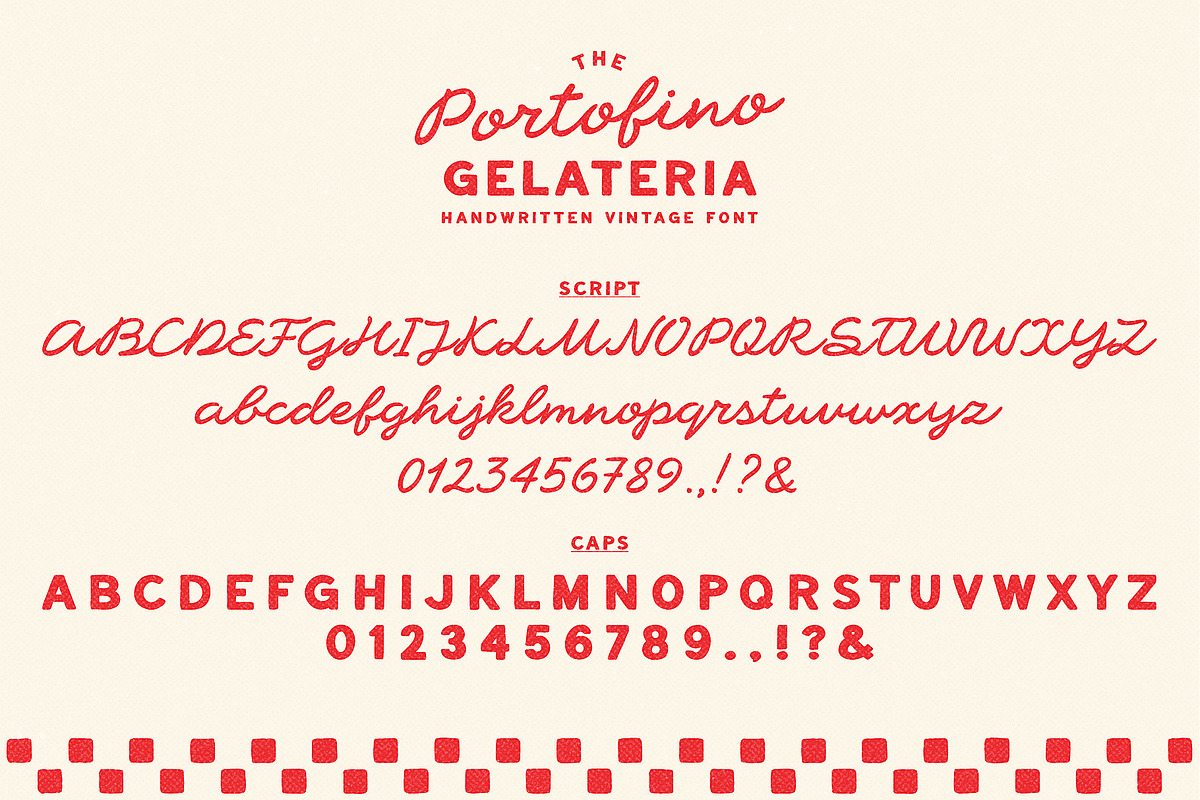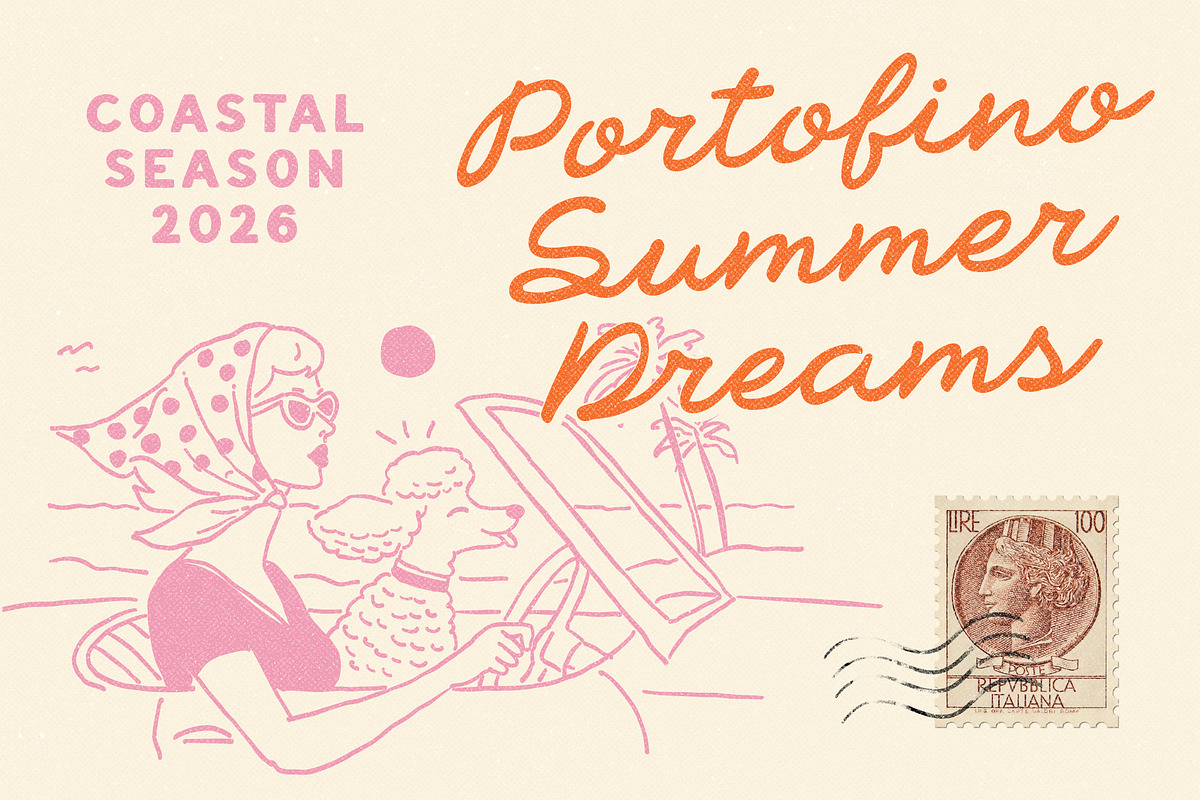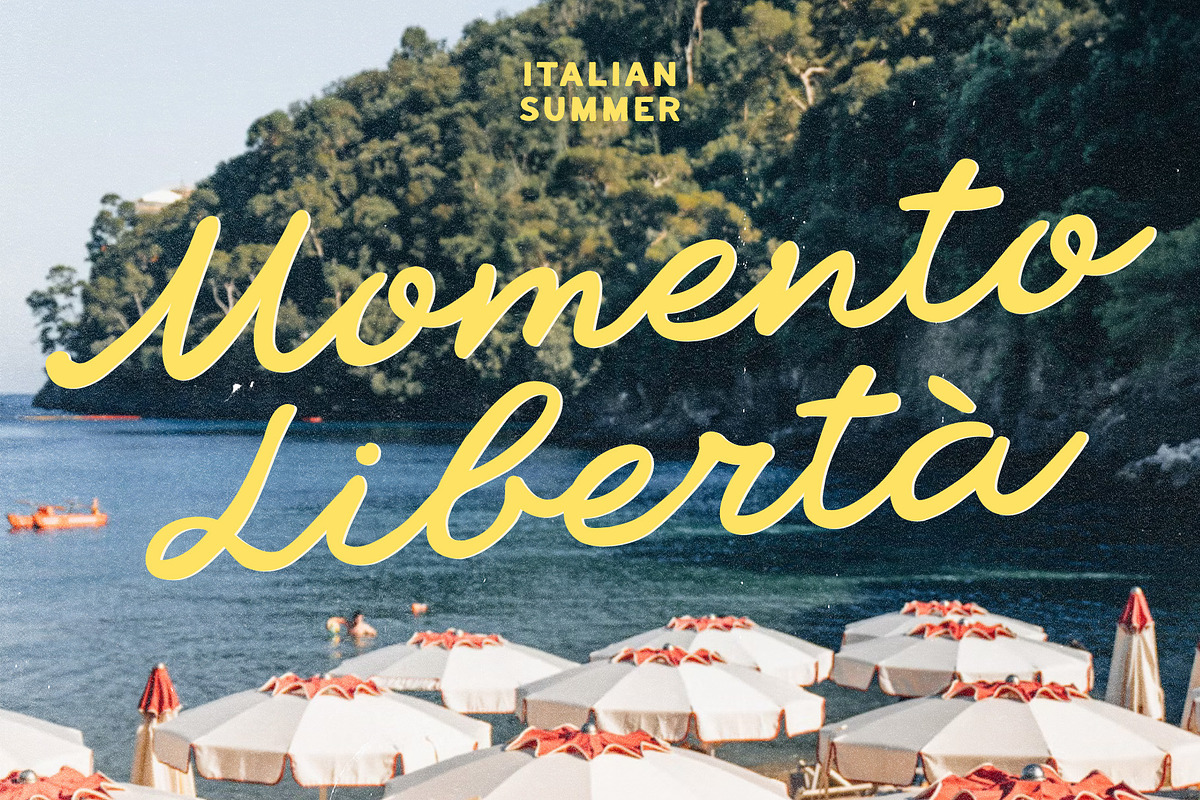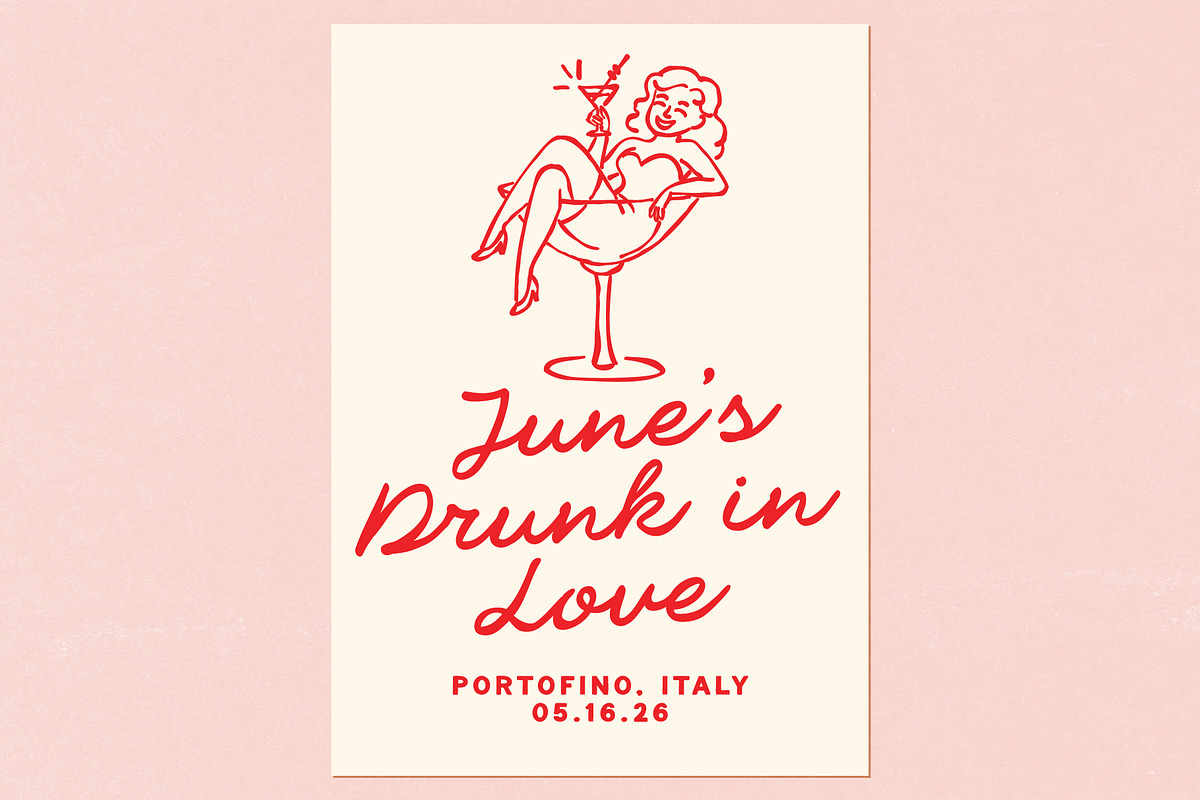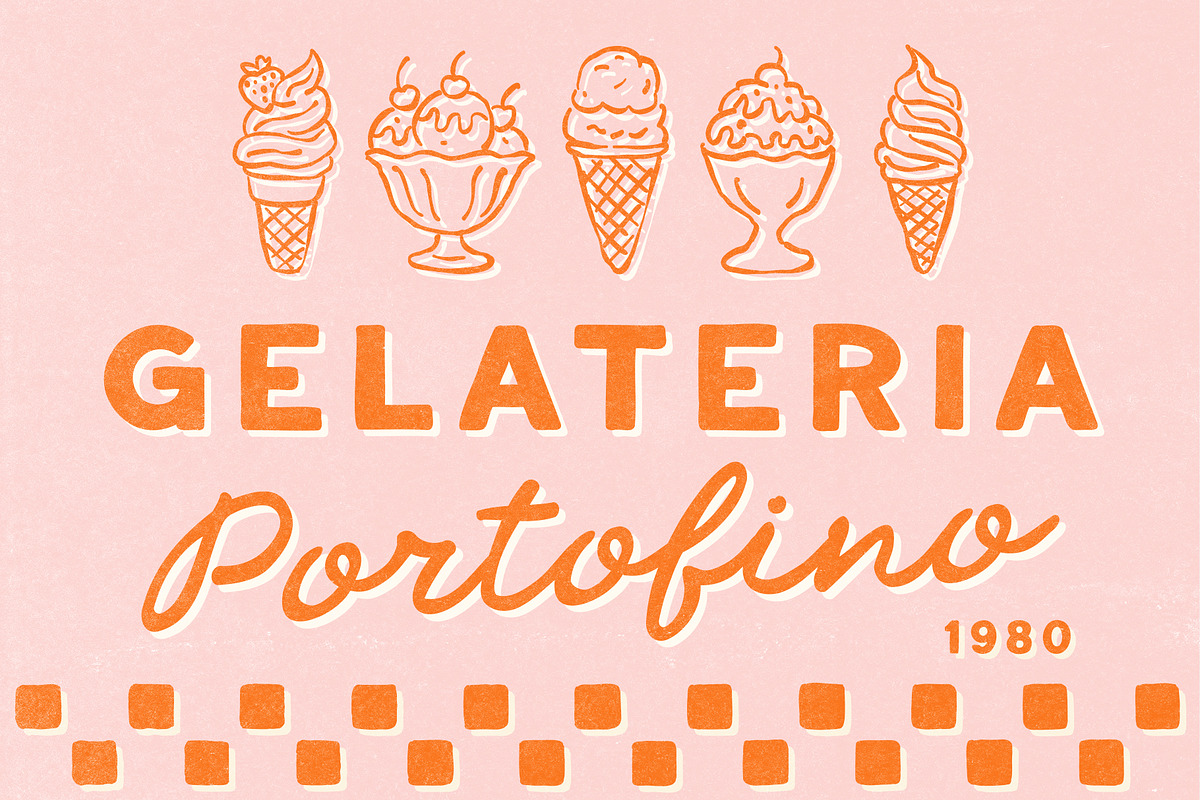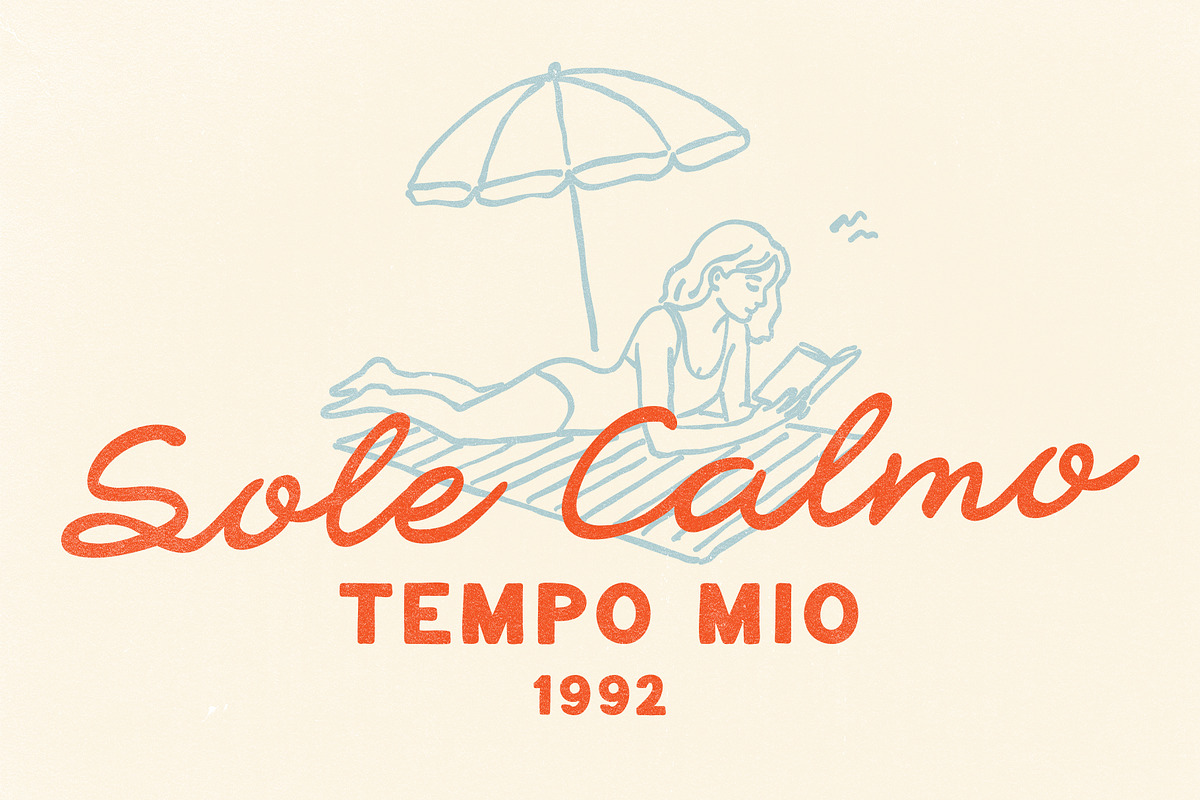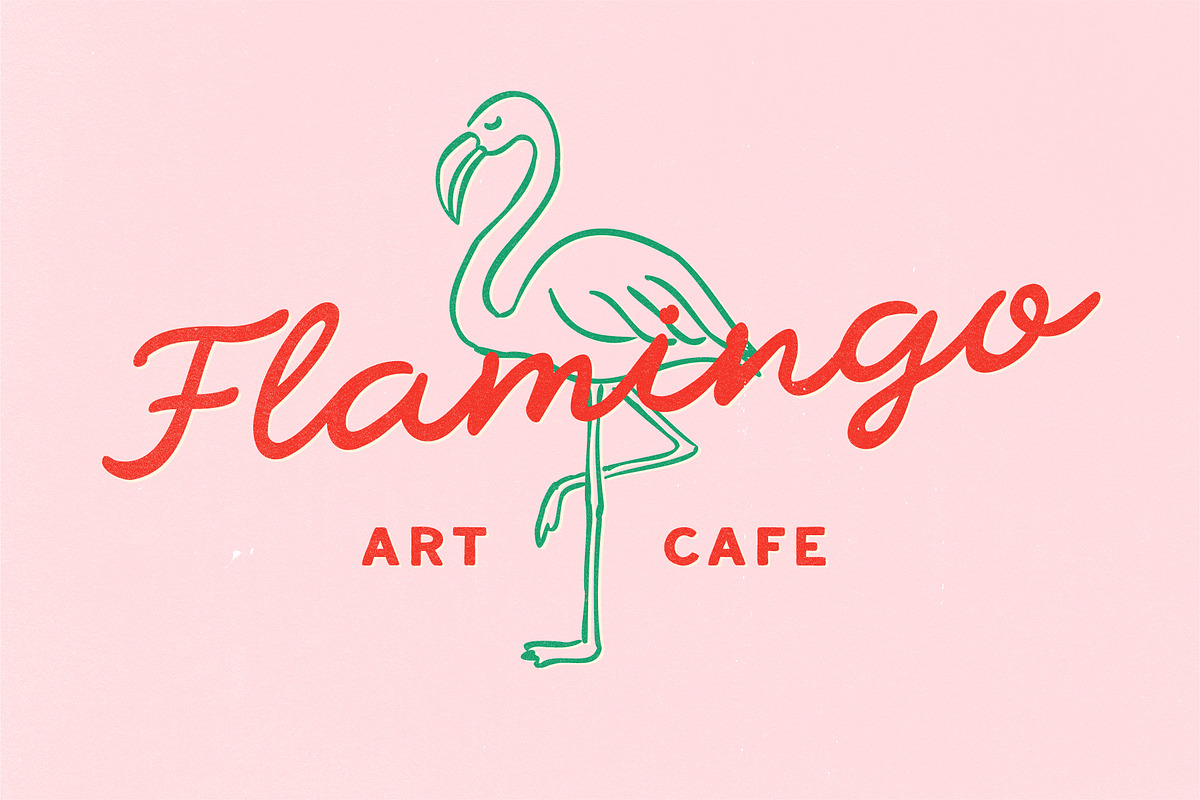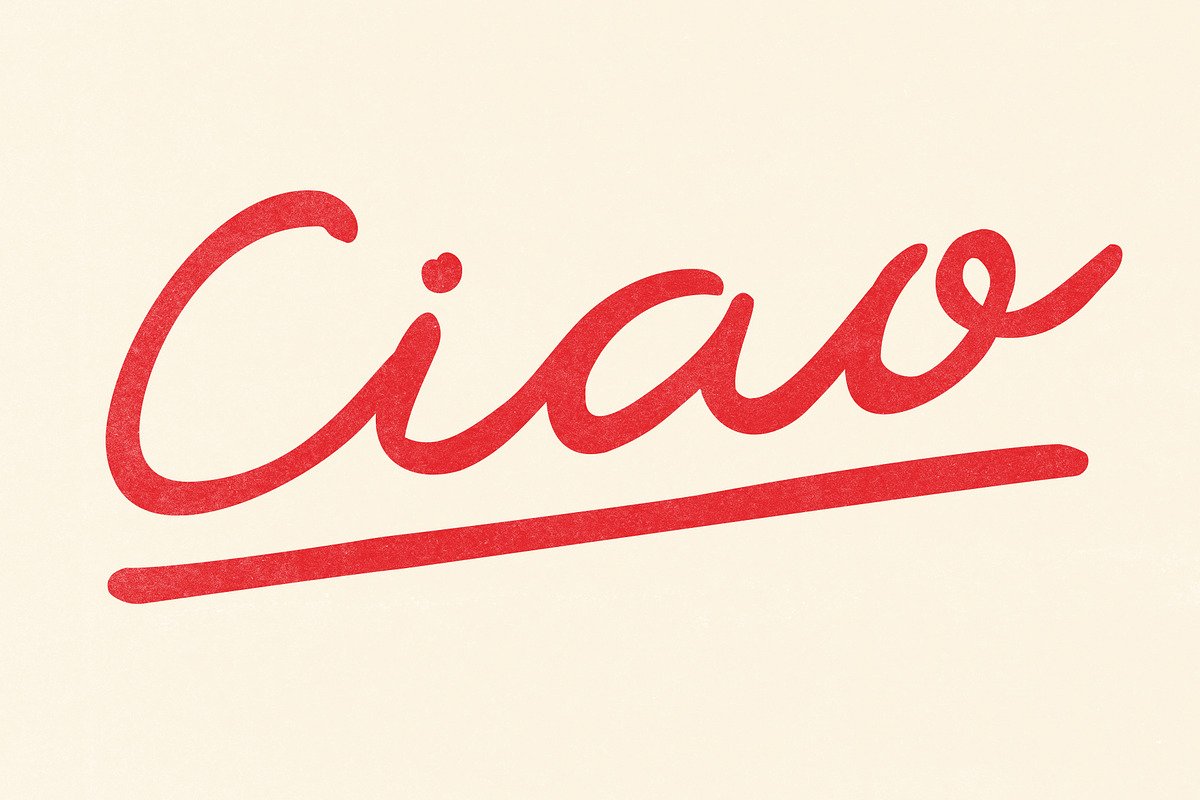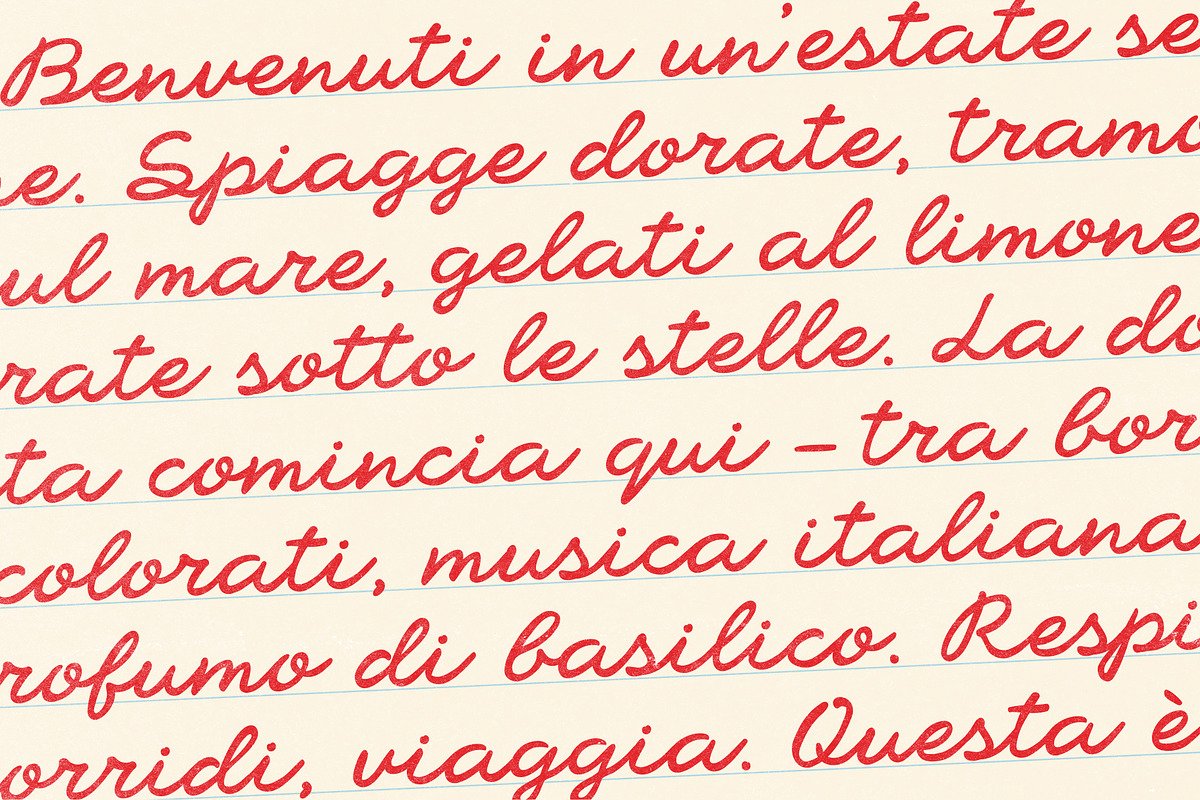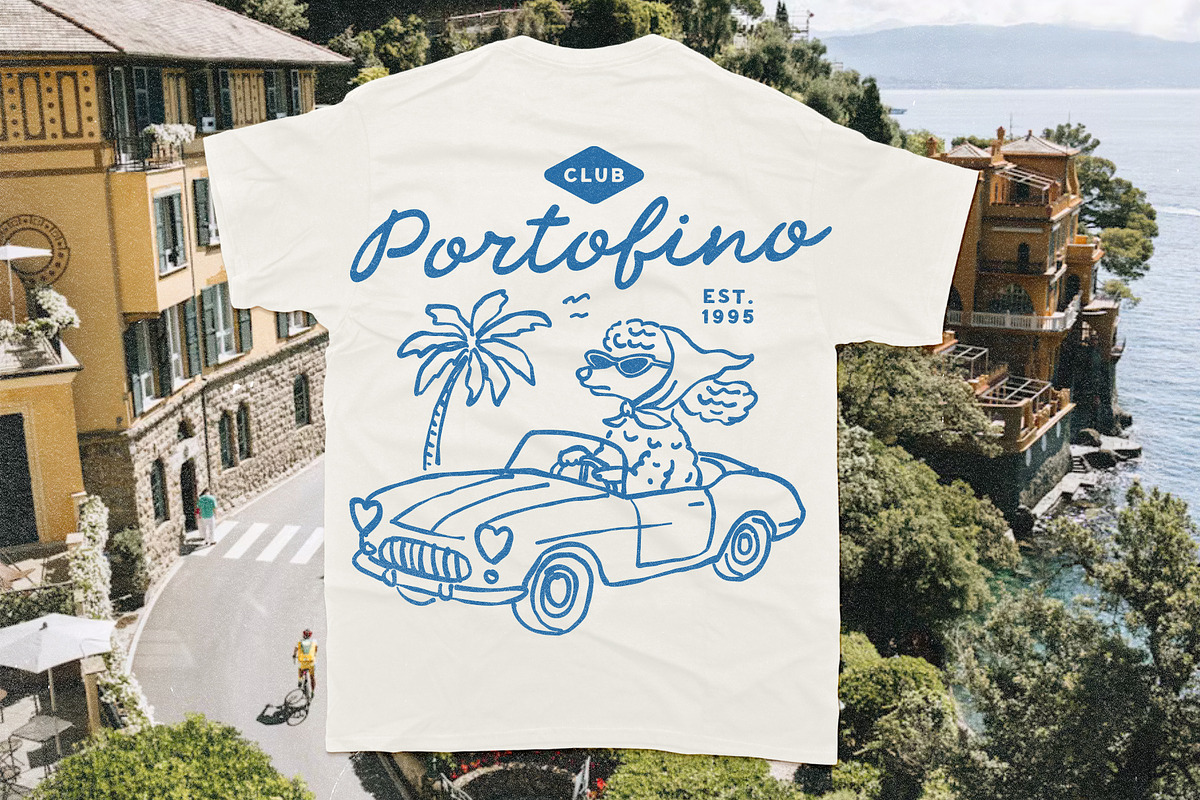
Portofino Gelateria Vintage Font Duo
Inspired by an old song about Portofino, that dreamy, sunny tune that instantly takes you to a seaside café with a cold gelato in hand.🍨 That’s exactly the feeling we wanted to capture: the charm of vintage Italian signs, old posters, wedding menus, and branding from another era.
Portofino Gelateria is a hand-drawn font duo — a lively script paired with a soft, slightly naive sans. Both fonts are 100% handwritten, with all their quirks, uneven lines, and imperfect curves. They have personality, soul, and a touch of nostalgia.
This duo works beautifully for branding, packaging, wedding invitations, editorial titles, retro postcards, and anything that calls for that handmade aesthetic.
If you love Italy, gelaterias, and type that breathes — this one might just be for you. 🇮🇹 🤌🏽 🍝